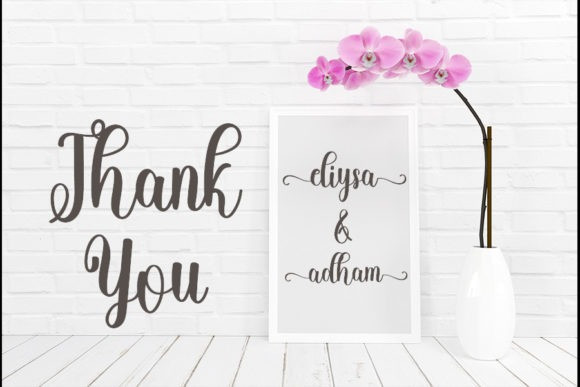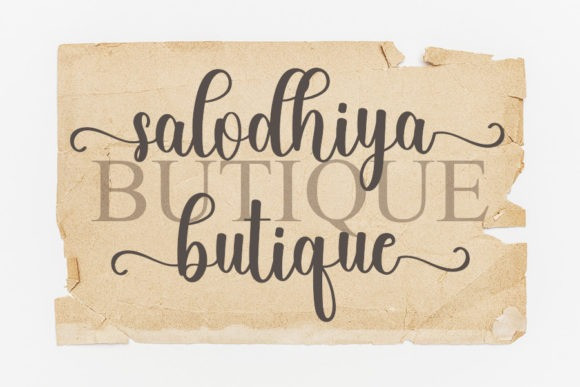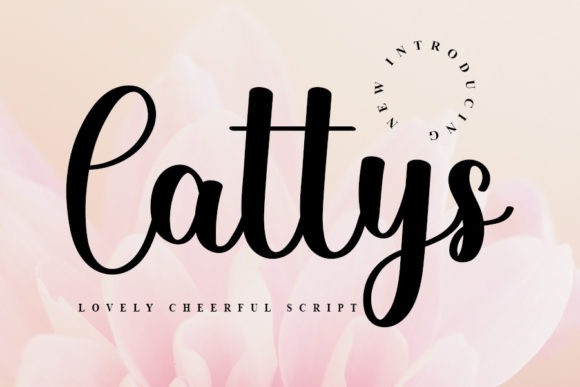
Cattys Font
Cattys Font by FreshTypeINK 26,783 downloads
Cattys Font
Cattys Script Font is a lovely and timeless handwritten font. It is the best choice for creating eye catching logos, branding and quotes. This font is PUA encoded which means you can access all glyphs and swashes with ease!